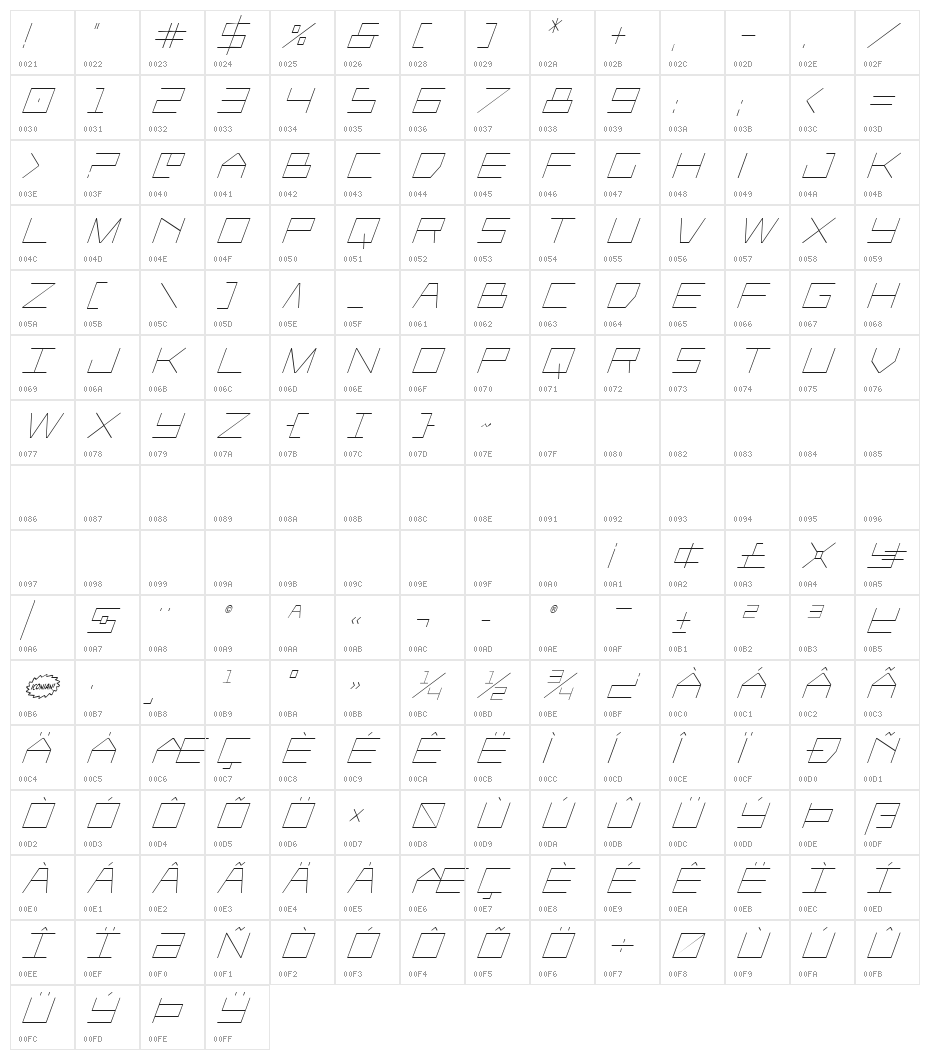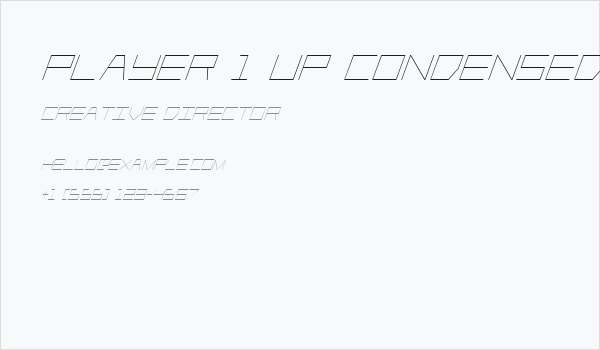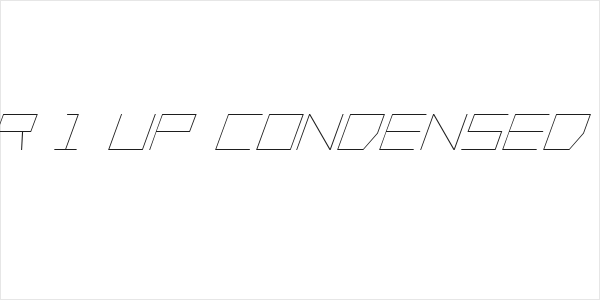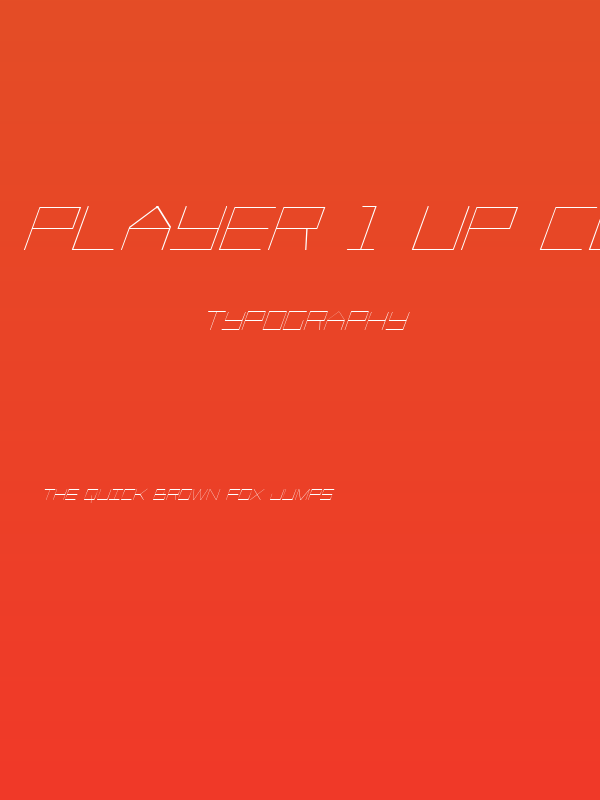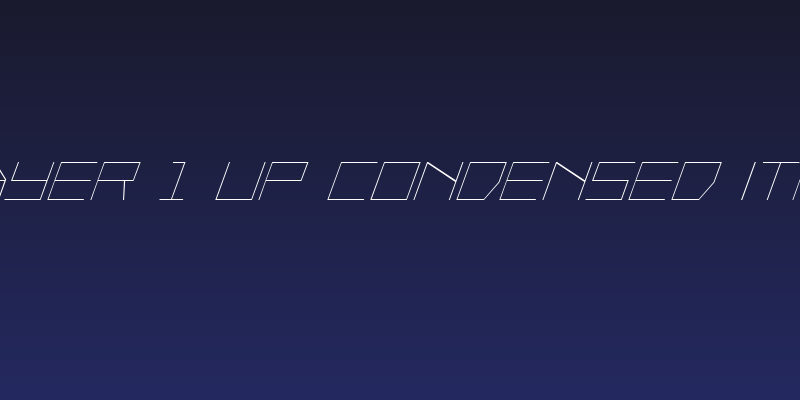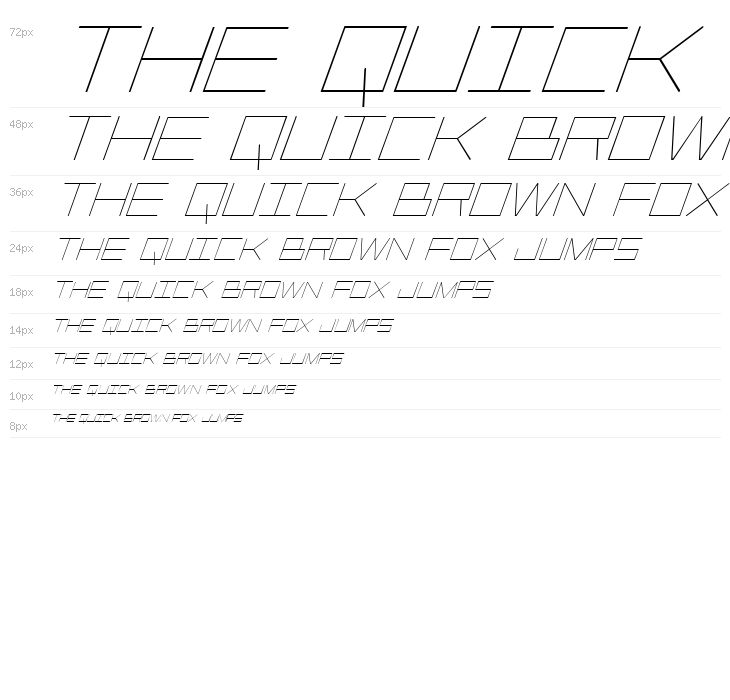
Player 1 Up Condensed Italic Font
Player 1 Up Condensed Italic Description
This font features a futuristic and geometric design with sharp angles and a condensed form. The characters are italicized, giving them a dynamic and forward-leaning appearance. The lines are thin and consistent, creating a sleek and modern look. The uppercase and lowercase letters maintain a uniform style, while the numbers and special characters complement the overall aesthetic. The font's unique style is reminiscent of digital or sci-fi themes, making it suitable for projects that require a modern and tech-savvy feel.